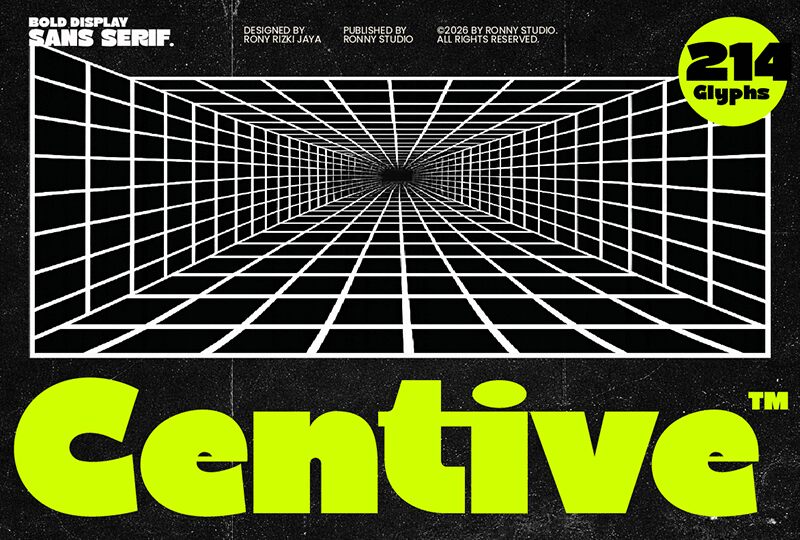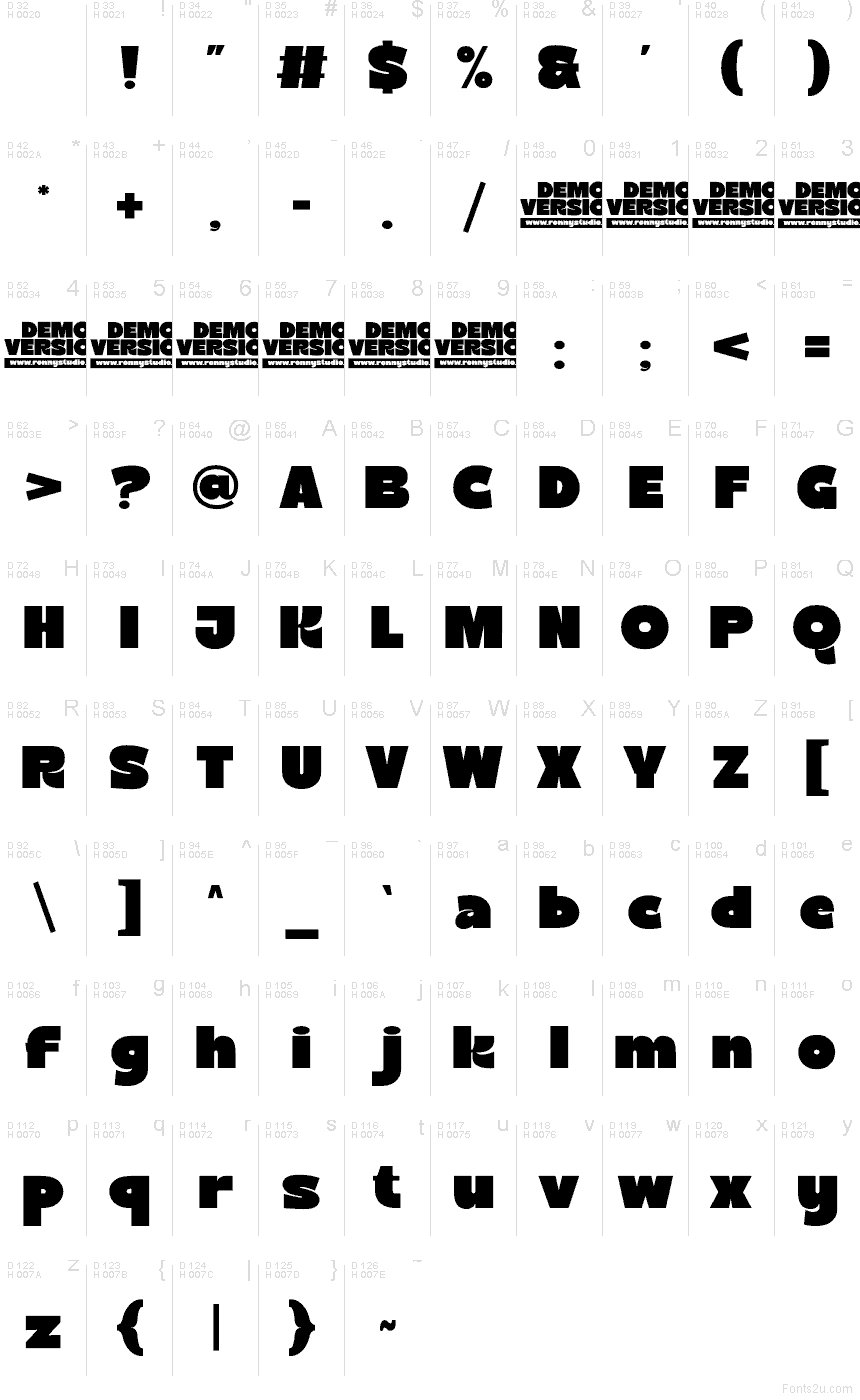
Centive DEMO
Centive by Ronny Studio is a free modern display font with a dense, chunky silhouette and soft geometric curves. The letters feel packed and weighty, with rounded forms cut into broad, almost blocklike shapes that give the design a blunt, contemporary voice.
It fits branding, poster headlines, music artwork, packaging, and social media title cards where a few large words need real visual mass. As a free font, Centive also suits cover lines and short logotypes, since its thick, close-knit lettering makes compact phrases feel bold and immediate.
Centive is a bold sans display typeface designed for strong headlines, impactful branding, posters, streetwear graphics, social media visuals, album covers, and modern logo design. Built with solid shapes and confident personality.